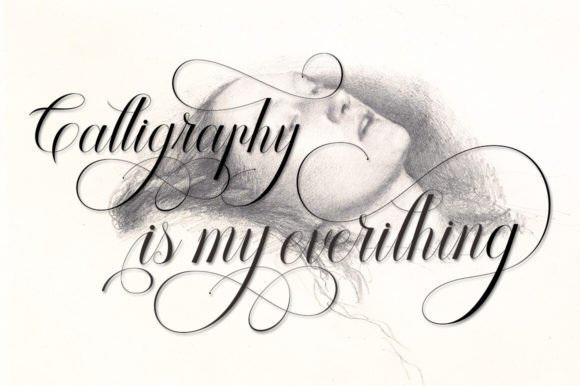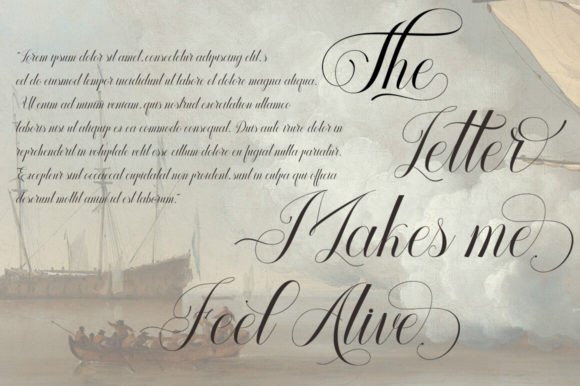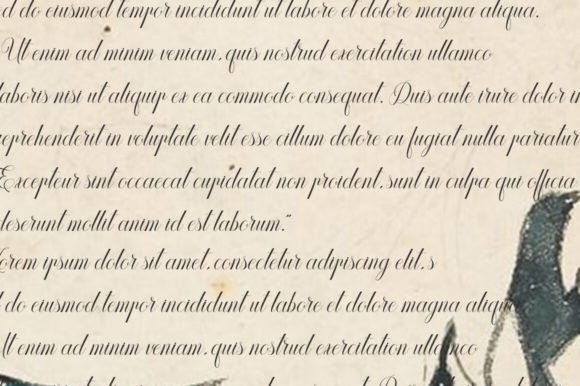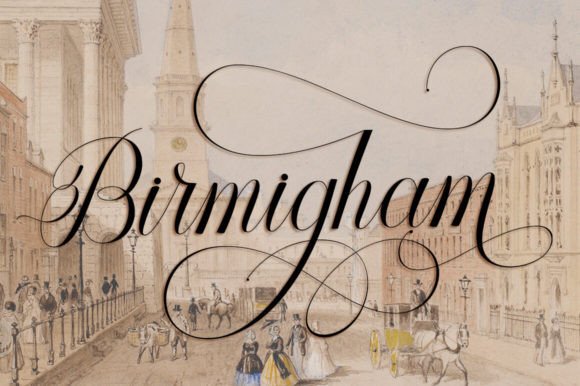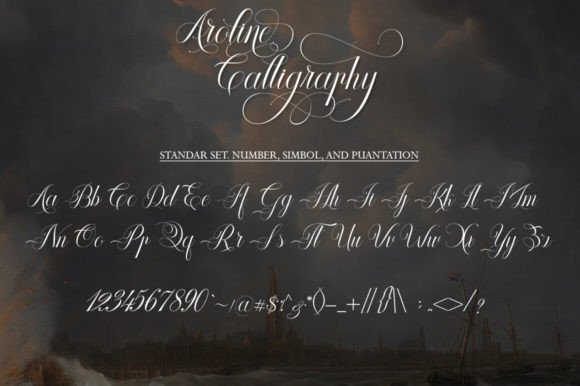
Aroline Calligraphy Font: Elevate Your Designs with Elegance and Sophistication
In the world of typography, few fonts manage to convey the essence of elegance and sophistication as effectively as Aroline Calligraphy. This stylish script typeface has been gaining popularity among designers and crafters for its unique ability to add a touch of refined beauty and timeless appeal to any design. Whether you’re working on wedding invitations, branding projects, or upscale designs, Aroline Calligraphy is an excellent choice to elevate your work.
The Characteristics of Aroline Calligraphy
Aroline Calligraphy is distinguished by its graceful curves and flowing strokes, which lend a sense of fluidity and charm to any design. The font’s elegant and sophisticated appearance makes it perfect for projects that require a high level of refinement. Its script typeface is reminiscent of traditional calligraphy, with each letter carefully crafted to create a sense of movement and harmony.
Uses of Aroline Calligraphy
Aroline Calligraphy is a versatile font that can be used in a variety of design projects, including:
- Wedding Invitations: Add a touch of elegance and sophistication to your wedding invitations with Aroline Calligraphy. The font’s flowing strokes and graceful curves create a romantic and memorable impression.
- Branding: Use Aroline Calligraphy to create a luxurious and high-end brand identity. The font’s refined beauty and timeless appeal make it perfect for brands that want to convey a sense of sophistication and elegance.
- Upscale Projects: Aroline Calligraphy is ideal for upscale projects that require a high level of refinement, such as luxury packaging, high-end advertising, and premium marketing materials.
Benefits of Using Aroline Calligraphy
There are several benefits to using Aroline Calligraphy in your design projects:
- Elegance and Sophistication: Aroline Calligraphy adds a touch of elegance and sophistication to any design, making it perfect for high-end projects.
- Timeless Appeal: The font’s classic and traditional design ensures that it will remain relevant for years to come, making it a great investment for designers and crafters.
- Versatility: Aroline Calligraphy can be used in a variety of design projects, from wedding invitations to branding and upscale projects.
- Easy to Read: Despite its elegant and cursive nature, Aroline Calligraphy is easy to read, making it perfect for body text and headlines.
Tips for Using Aroline Calligraphy
To get the most out of Aroline Calligraphy, here are some tips to keep in mind:
- Use it Sparingly: Aroline Calligraphy is a bold and elegant font, so use it sparingly to avoid overwhelming your design.
- Pair it with Simple Fonts: Pair Aroline Calligraphy with simple and clean fonts to create a striking contrast and add visual interest to your design.
- Experiment with Colors: Aroline Calligraphy looks great in a variety of colors, so experiment with different hues and shades to find the perfect combination for your design.
Aroline Calligraphy is a stylish script typeface that can elevate your designs with elegance and sophistication. Its graceful curves and flowing strokes lend a sense of fluidity and charm to any design, making it perfect for wedding invitations, branding, and upscale projects. With its timeless appeal, versatility, and ease of use, Aroline Calligraphy is a great addition to any designer’s toolkit. So why not give it a try and see how it can transform your designs?